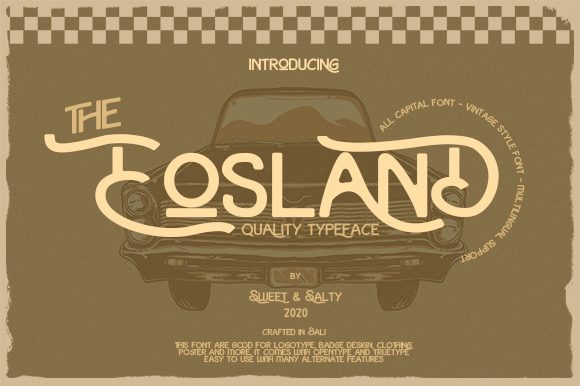
Meet Eosland, the whimsical display font that sets your creations apart! Experience the delightful fusion of simplicity and playfulness, where each letter dances with a touch of magic.
Unleash your imagination and let Eosland's dynamic swashes captivate your audience. Weave tales of wonder and enchantment, or craft designs that exude a sense of carefree joy. With Eosland, the possibilities are as boundless as your creativity.
Dive into a world where typography transforms into art. Paint your words with Eosland's vibrant personality and watch them come alive, igniting curiosity and leaving an unforgettable mark.
Embrace the allure of Eosland, and embark on a journey where fonts become more than just letters. Step into a realm where every word carries a story, every design tells a tale. Let Eosland be your guide, and together, you'll create masterpieces that resonate with hearts and minds.